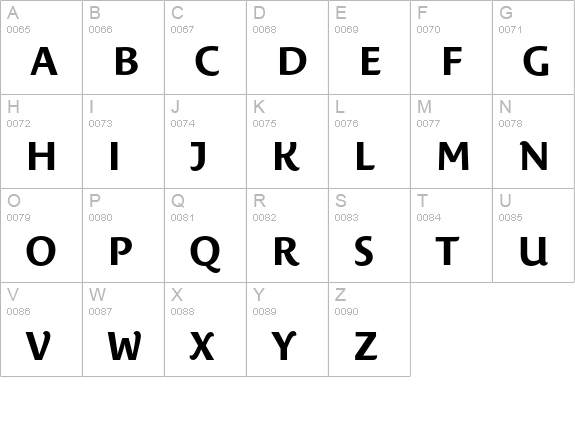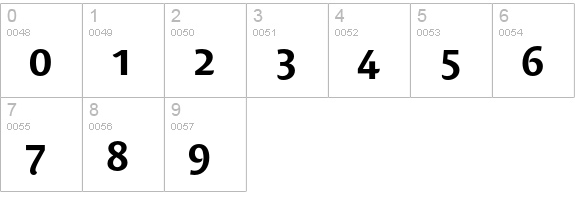
Costa Ptf Bold is a strong, high-contrast variant in the Costa typeface family \xE2\x80\x94 well suited to headlines, attention-grabbing titles, and strong calls-to-action.
Costa Ptf Bold is a modern and stylish font that exudes confidence and sophistication. With its bold and impactful design, this font is perfect for making a statement in various design projects. Whether you are creating a poster, logo, or branding materials, Costa Ptf Bold will surely stand out and grab attention. The clean lines and sharp edges of Costa Ptf Bold give it a contemporary look that is versatile and easy to read. Its strong presence makes it ideal for headlines and titles, adding a touch of elegance and flair to any project. Best of all, Costa Ptf Bold is available for free download at FontsMarket.com. This means that you can easily access this beautiful font and use it in your designs without any cost. So why wait? Download Costa Ptf Bold today and elevate your designs with its bold and striking appeal.